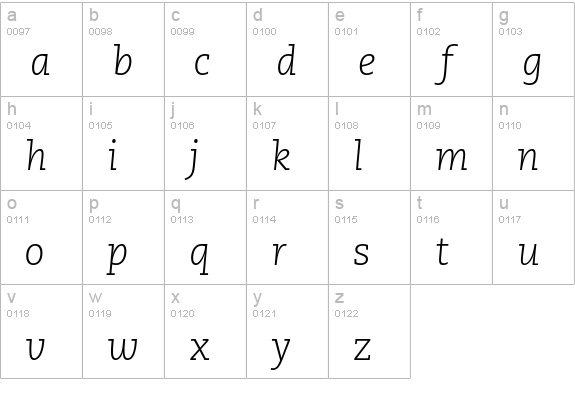
Monologue Light SSi Light Italic is a refined, elegant, italic variant in the Monologue typeface family \xE2\x80\x94 well suited to elegant body text, refined sub-headings, and luxury branding.
Monologue Light SSi Light Italic font is a sleek and modern typeface that exudes elegance and sophistication. Its italic style adds a touch of flair, making it perfect for adding a touch of refinement to any design project. The delicate strokes and subtle curves give this font a graceful and stylish appearance, making it ideal for use in branding, editorial design, and more. What makes Monologue Light SSi Light Italic font even more appealing is that it is available for free download at FontsMarket.com. This means that you can easily access this beautiful font without any cost, making it a valuable addition to your font collection. Whether you're a designer looking to elevate your projects or a creative individual in search of a stylish typeface, Monologue Light SSi Light Italic font is sure to impress with its versatility and charm. Download it today and enhance your designs with this exquisite font.